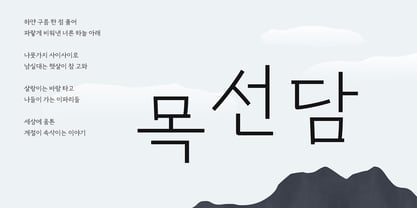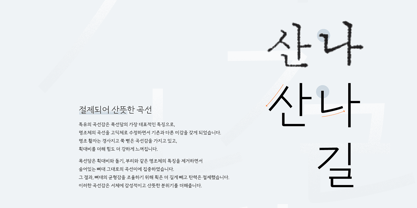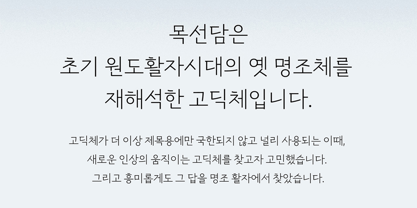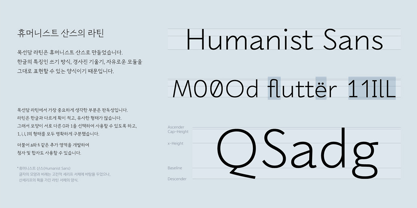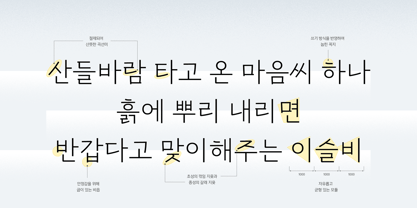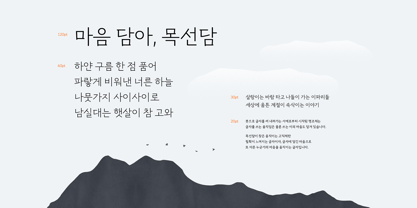
Yoon Mocksundam
by Yoon Design
The Yoon Mocksundam Font Family was designed by Yoon Design Team and published by Yoon Design. Yoon Mocksundam contains 1 styles. More about this family
Yoon Mocksundam reinterprets traditional Ming-style type into a dynamic sans serif. Inspired by early metal type and calligraphy, it merges brush-like movement with balanced modular forms to create a fresh look full of character.
Family size: A single weight.
Glyph count: 2,780 hangeul glyphs, 95 Latin glyphs, 194 additional Latin glyphs, and 1,019 symbols.
Language support: Multi-lingual support for English, Korean, and more.
Designers: Yoon Design Team
Foundry: Yoon Design
Yoon Mocksundam